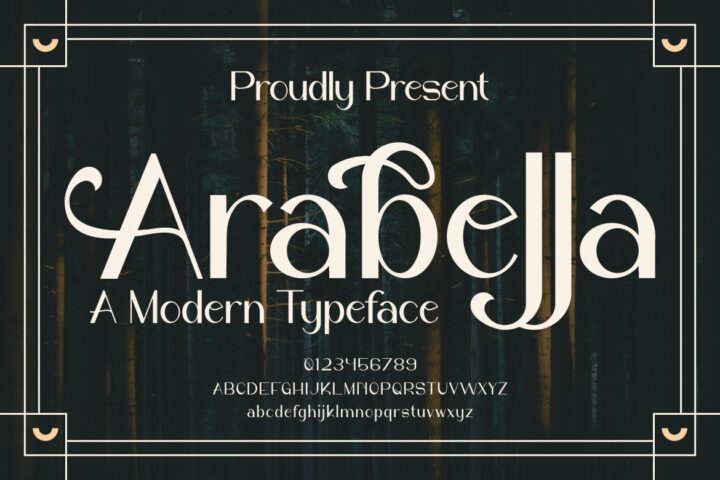
Arabella – A Modern Font
Introducing our new product Arabella Font – Modern Font Arabella Font** – Modern Font is a bold and authentic display font. The font is suitable for any branding project like logo, t-shirt printing, Product and many more. outstanding in a wide range of contexts.